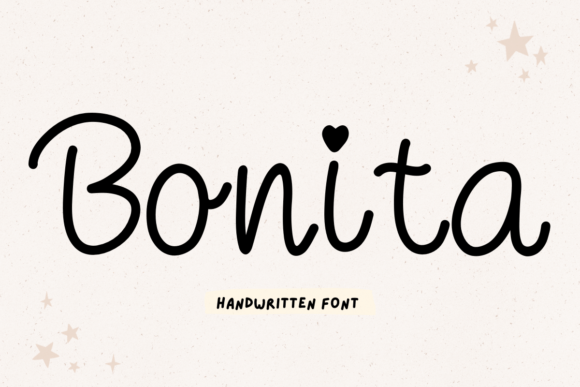
The Bonita Font: A Cute and Fun Handwritten Script Font for All Occasions
I’ll never forget the time I was working on a project for a client who requested a custom greeting card design. I had spent hours brainstorming ideas, but something was missing – the perfect font. That’s when I stumbled upon the Bonita font, a cute and fun handwritten script font that instantly captured the playful and whimsical vibe I was going for. Whether you’re a designer, crafter, or creative hobbyist, this font has the potential to become your favorite go-to font, no matter the occasion!
An Honest Review of Bonita Font
What I Love About Bonita Font
- ✨ Cute and playful personality: Bonita font has a unique, hand-drawn feel that’s perfect for creating fun and engaging designs.
- ✅ Highly versatile: This font can be used for a wide range of projects, from crafts and digital design to presentations and greeting cards.
- 💫 Elegant yet informal: Bonita font strikes the perfect balance between elegance and informality, making it suitable for both personal and professional projects.
While Bonita font is an excellent choice for many projects, there are a few quirks to be aware of:
- 🤔 Limited use in formal designs: Due to its playful nature, Bonita font may not be the best choice for formal designs, such as business proposals or official documents.
- ⚠️ Glyph limitations: Some users have reported that the font may not have an extensive range of glyphs, which could limit its use in certain projects.
- Experiment with OpenType features, such as stylistic alternates and glyphs, to add more personality to your design.
- Access OpenType features, such as swashes and stylistic sets, to customize your text.
The Backstory of Bonita Font
The Bonita font was designed by a team of typographers who aimed to create a font that would capture the essence of handwriting. Inspired by traditional handwriting styles, the Bonita font was crafted to be both elegant and playful, making it perfect for a wide range of design projects.
Q: What type of projects is Bonita font best suited for?
A: Bonita font is perfect for crafts, digital design, presentations, greeting cards, and any project that requires a playful and whimsical touch.